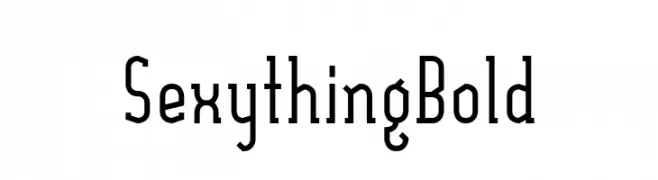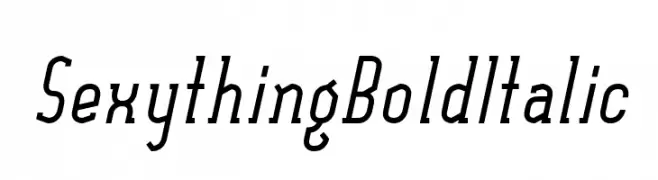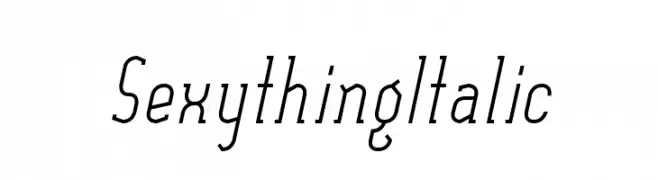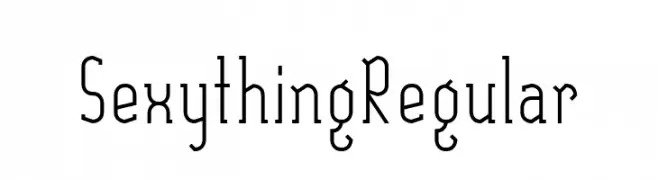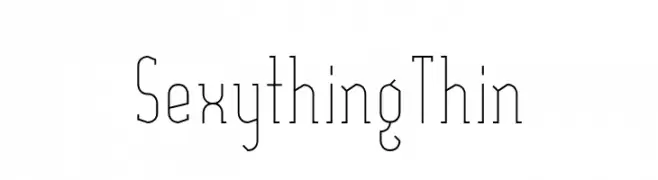
A bold, modern font with elongated, narrow characters and a distinctive geometric style.
A bold, italicized font with a modern, angular style.
A sleek, italicized font with elongated, narrow characters and minimal stroke contrast.
A modern, geometric font with tall, narrow letterforms and subtle vintage influences.
A modern, thin, and geometric font with elongated strokes and sharp angles.